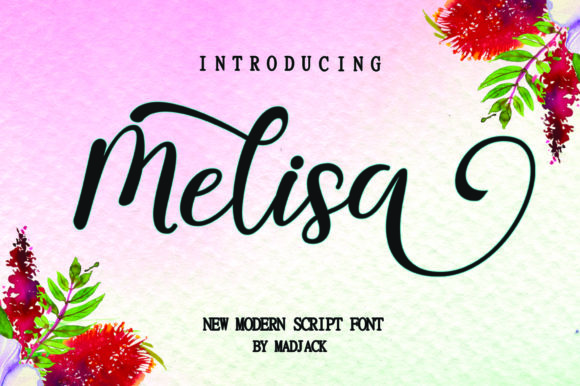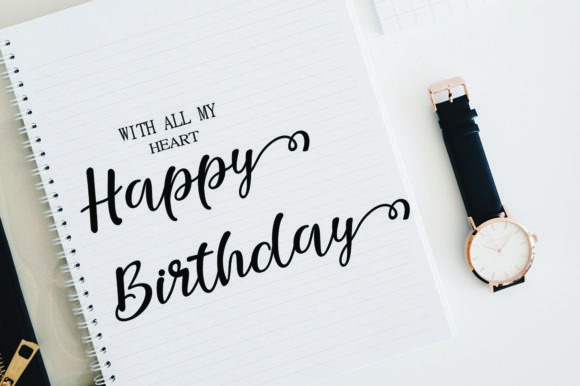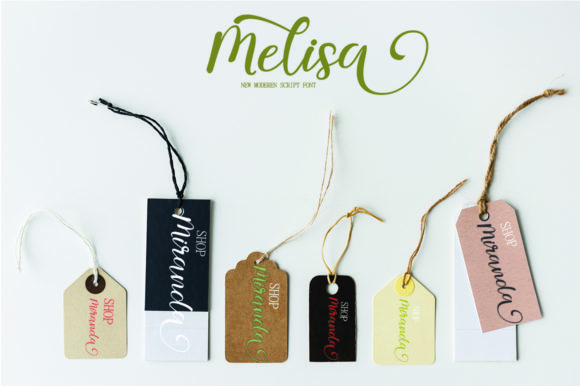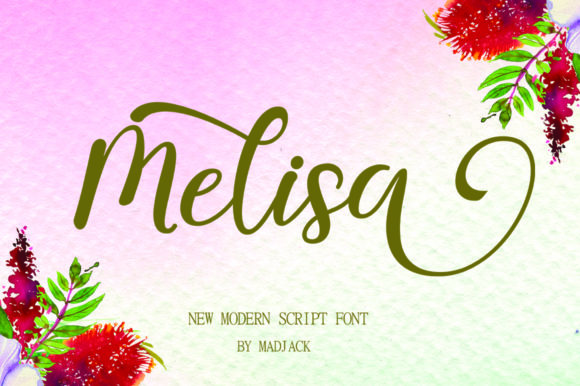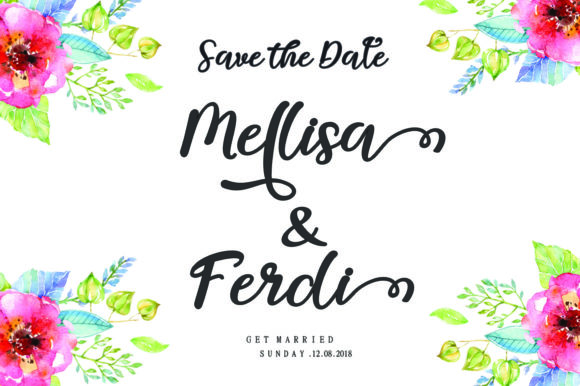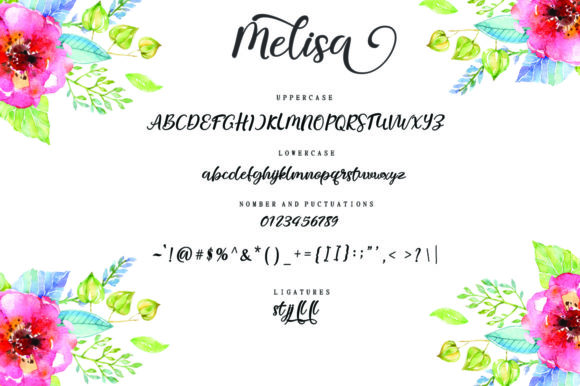
Melisa Font
About Melisa Font
The Melisa is a modern calligraphy font. It was handwritten and includes characters which are dancing on its baseline.
It includes lovely alternates which can be used for logos, fashion, magazines, books, invitations, wedding stationary, labels, and much more!